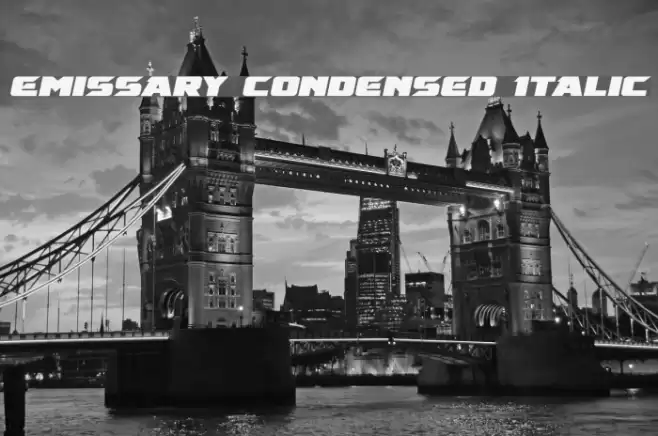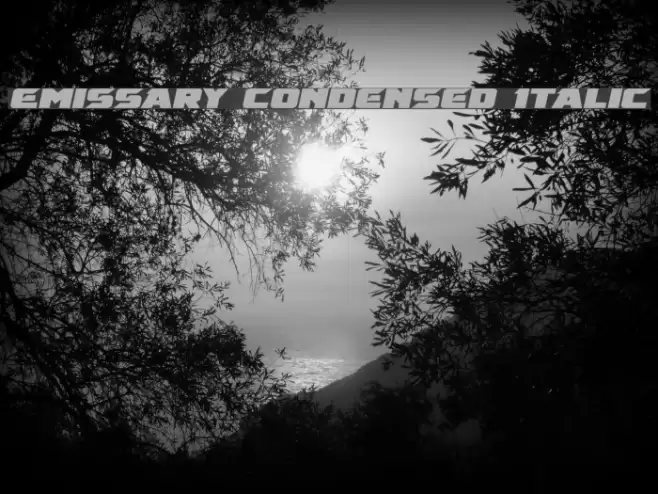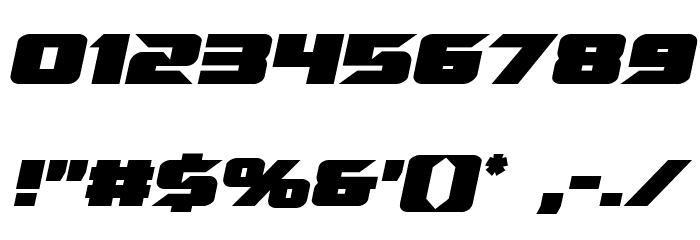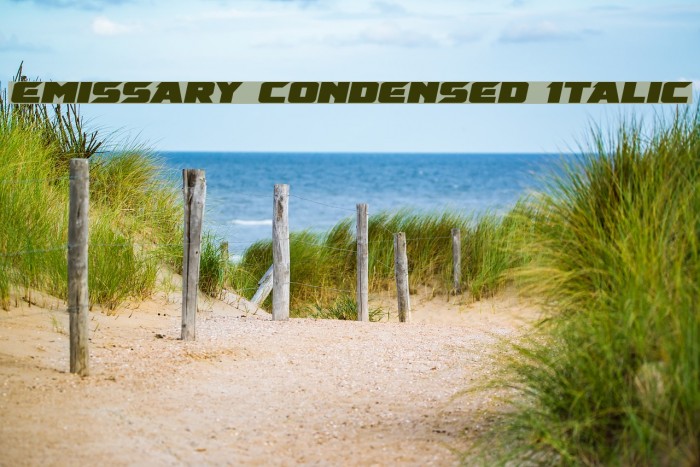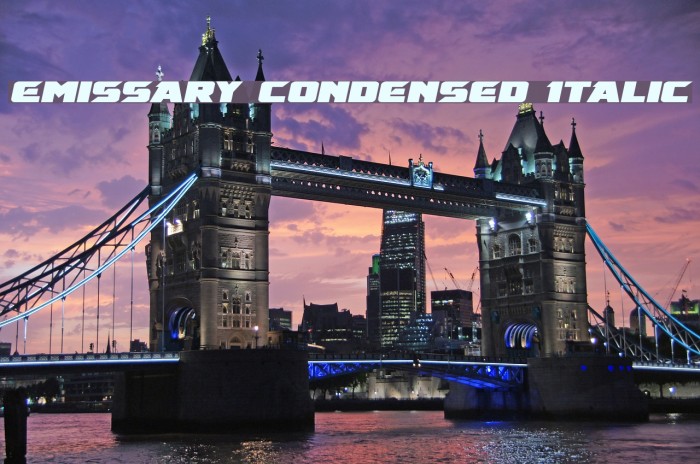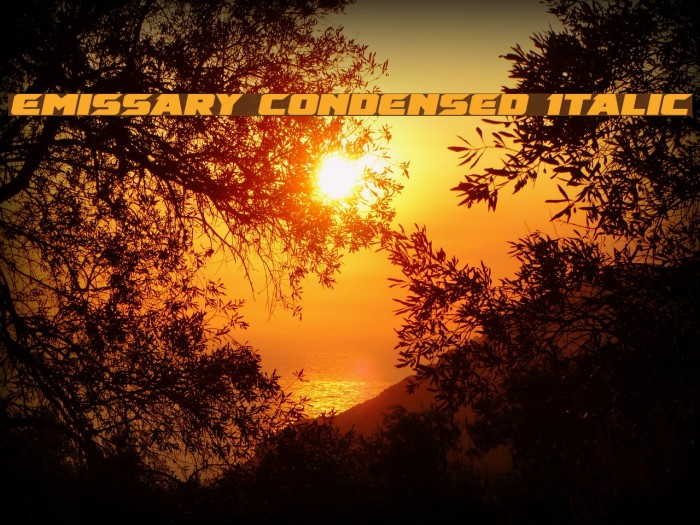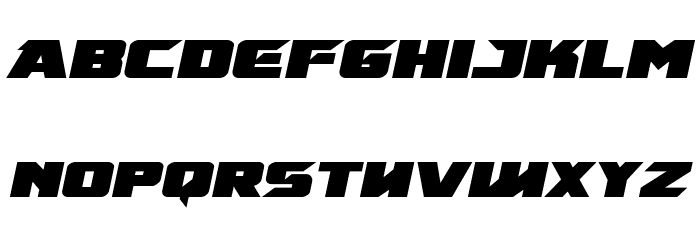
Emissary Condensed Italic Font
Emissary Condensed Italic Description
This font features a bold, italicized style with a condensed width, giving it a dynamic and energetic appearance. The characters are sharply angled, with distinct geometric shapes that convey a sense of speed and modernity. The uppercase and lowercase letters maintain a consistent style, with the uppercase being particularly striking due to their strong presence. The numerals and special characters follow the same design principles, ensuring uniformity across all glyphs. The overall design is sleek and futuristic, making it suitable for projects that require a bold statement.
A bold, condensed italic font with a modern, geometric style from Uncategorized fonts.
- Proposed Projects: Ideal for sports branding, automotive designs, tech-related projects, and dynamic advertising.